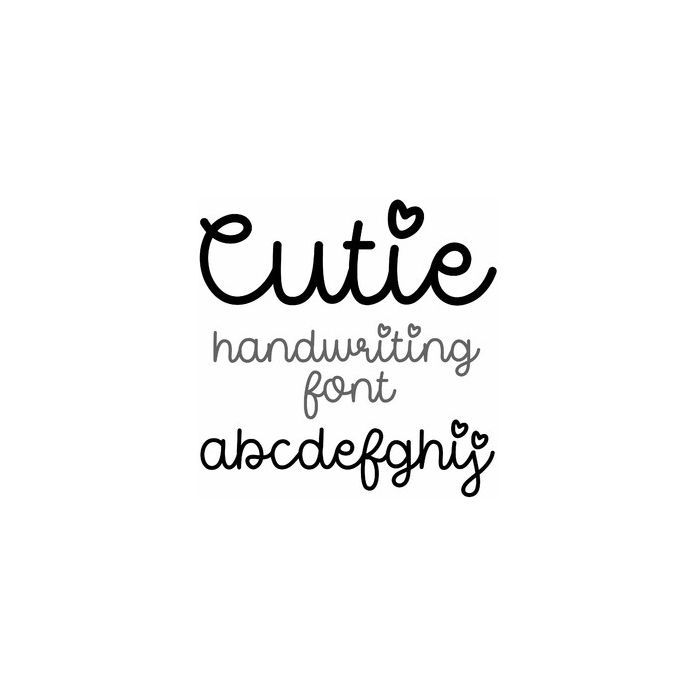
cutie handwriting font
Cutie is a handwriting script font fun for cards, stickers, personalization, labels, and crafts. Includes alphabet, numbers, and punctuation.